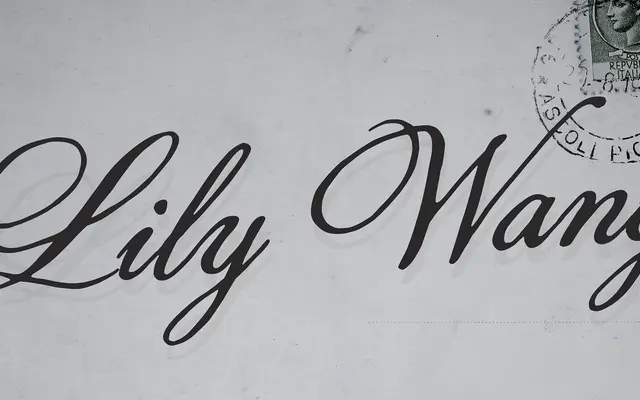
Lily Wang
A 19th-century-inspired handwritten script with an inky texture evoking period penmanship and antique charm.
Modelled on 19th-century script styles, Lily Wang carries an inky, textured quality that reads as authentic hand-lettering rather than a mechanical facsimile. Smooth, flowing strokes lend it a nostalgic warmth suited to vintage branding, packaging and historical editorial contexts. The single weight keeps the offering focused, relying on the authenticity of its letterforms rather than stylistic breadth.
A 19th-century-inspired script with inky, flowing strokes characteristic of authentic period handwriting, placing it firmly in the handwritten script subcategory.